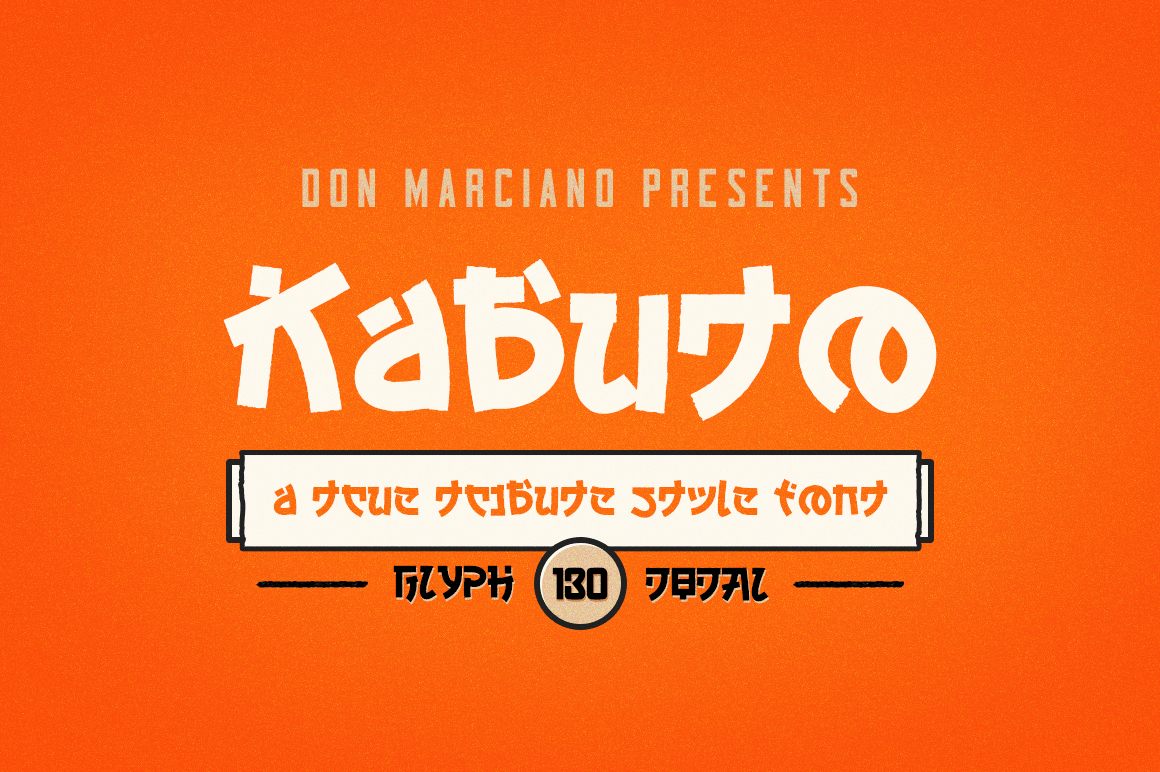
Kabuto Tribute Font
Kabuto is a tribute style font, design to emulate the great look and feel of the Japanese alphabet so it can be readable by westerners as it retains the elegant and exotic style of its inspiration; designed with straight and curve lines with a combination semi roughness, originally for a apparel only brand focus on stream media products that are easy to scale up.
An OTF file format with a total count of 130 glyphs, with upper and lower cases. I’ll appreciate your support if possible. Enjoy!